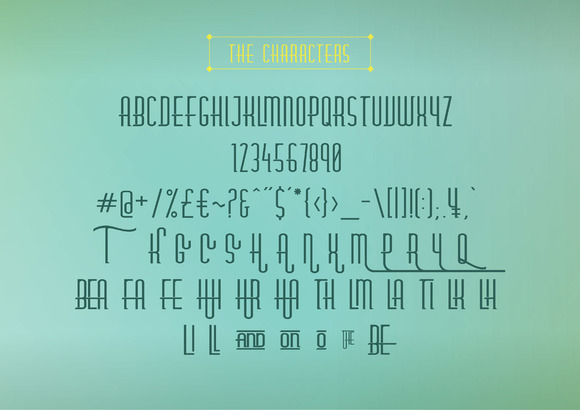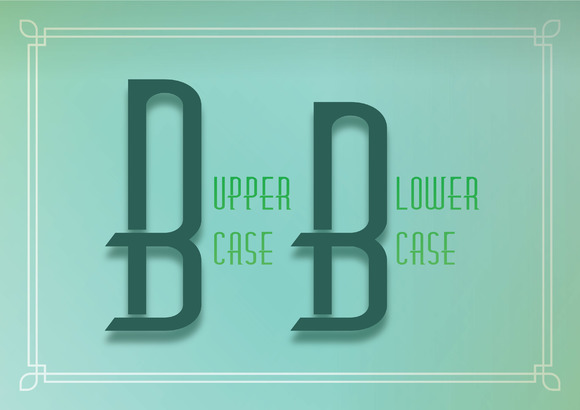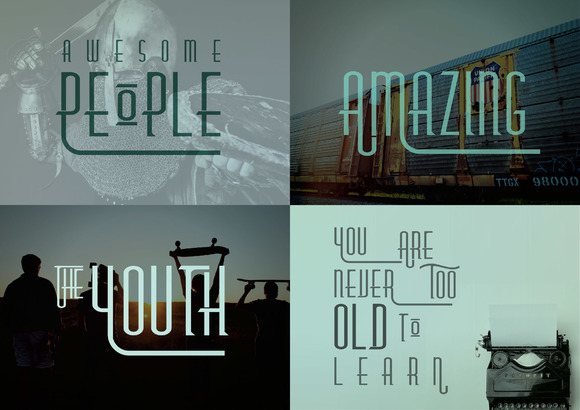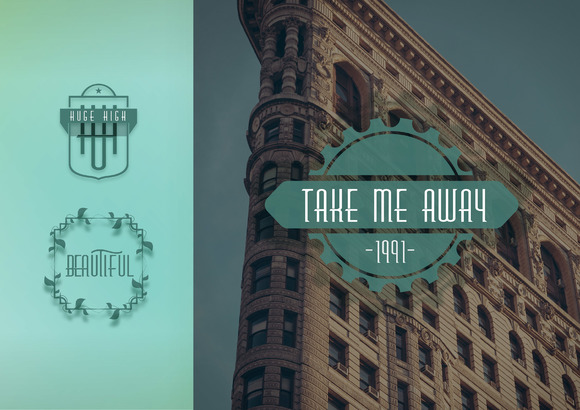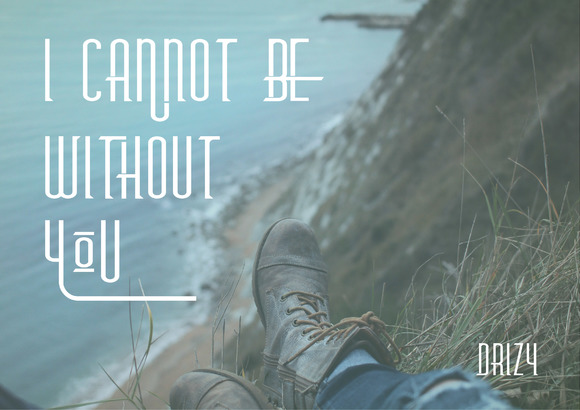
The Perfect Font to Elevate Your Designs
You know that moment when you’re brainstorming ideas for a new project and suddenly, the perfect font pops into your head? It’s like a spark of creativity that sets your imagination ablaze. For designers, finding the right font can make all the difference between a good design and a great one. That’s where the Beatrixe Font comes in – a unique and charming typeface that’s inspired by vintage lettering.
| 📌 Product Name | Beatrixe Font |
| 👤 Author | Drizy Studio |
Whether you’re working on a logo, a t-shirt design, or a greeting card, the Beatrixe Font is the perfect addition to your creative arsenal. Its versatility and elegance make it an invaluable tool for designers looking to add a touch of personality to their work. With the Beatrixe Font, you can create eye-catching headings, labels, and brochures that stand out from the crowd.
Key Features of Beatrixe Font
- Font Family: Beatrixe
- Font Size: 1,200 glyphs
- Unique Characteristics: Beatrixe is a modern sans-serif font designed to provide a friendly and approachable feel. It features rounded edges, subtle curves, and a range of weights and styles to suit various design needs.
Beatrixe Font Review
Overall, I think Beatrixe is a great font for creative projects, particularly those with a vintage or whimsical feel. The design is playful and charming, making it perfect for children’s books, greeting cards, or other projects that require a lighthearted tone.
- ✨ Unique and distinctive design: Beatrixe has a quirky, hand-drawn feel that sets it apart from more generic fonts.
- ✨ Wide range of weights and styles: The font comes in several weights and styles, making it easy to find the perfect fit for your project.
- ✨ Great for headings and titles: Beatrixe’s bold, playful design makes it perfect for headings and titles that need to stand out.
- ⚠️ Limited legibility in smaller sizes: While Beatrixe is great for headings and titles, it can be difficult to read in smaller sizes.
- ⚠️ May not be suitable for formal or professional projects: Beatrixe’s playful design may not be suitable for more formal or professional projects, such as business reports or academic papers.
Beatrixe is a fun and creative font that’s perfect for projects that require a lighthearted, whimsical tone. While it may not be suitable for all projects, it’s a great choice for anyone looking to add a touch of personality to their design.
Tips for Getting the Most Out of Beatrixe Font
For optimal results, use Beatrixe Font in conjunction with a clean and minimalist design aesthetic. This font is ideal for titles, headings, and short paragraphs. Avoid using it for large blocks of text.
Beatrixe Font is suitable for various design projects, including:
– Magazine and newspaper headlines